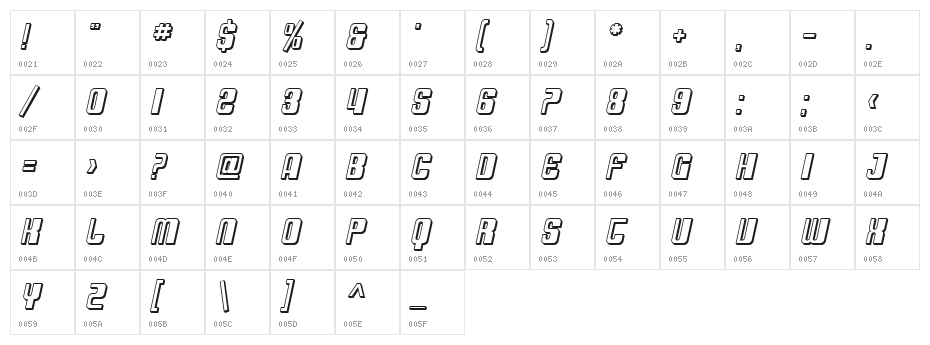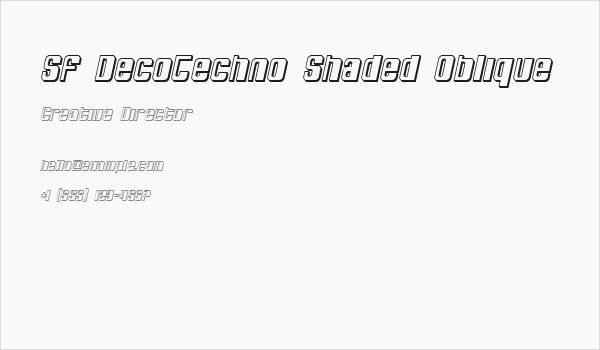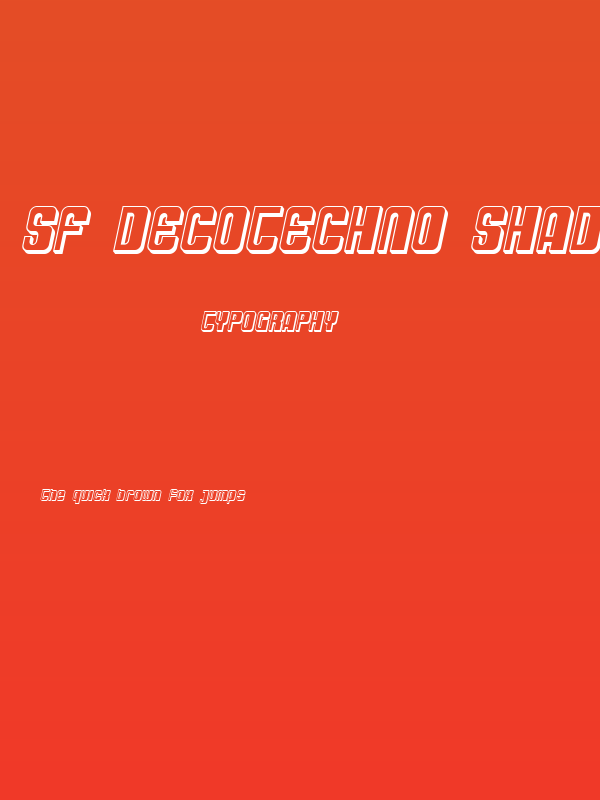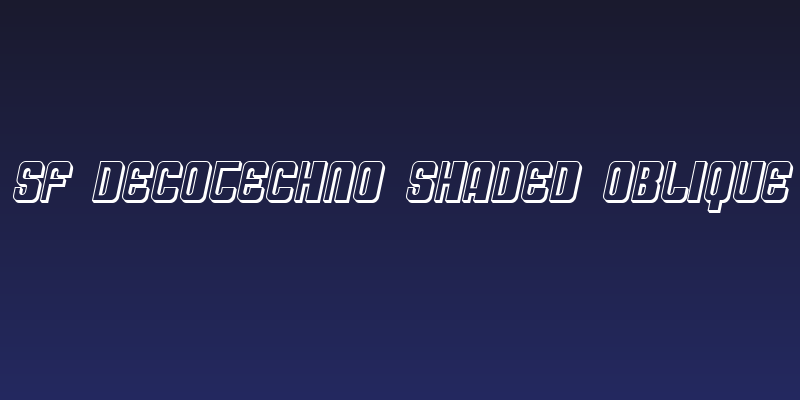
SF DecoTechno Shaded Oblique Font
SF DecoTechno Shaded Oblique Description
This font features a bold, futuristic design with a distinct three-dimensional effect achieved through shading. The characters are oblique, giving them a forward-leaning, dynamic appearance. Each letter is outlined, enhancing the depth and making the text stand out. The style is geometric, with sharp angles and clean lines, creating a modern and tech-inspired look. The uppercase and lowercase letters maintain a consistent style, while the numerals and special characters complement the overall aesthetic. This font is ideal for projects that require a strong, impactful visual presence.